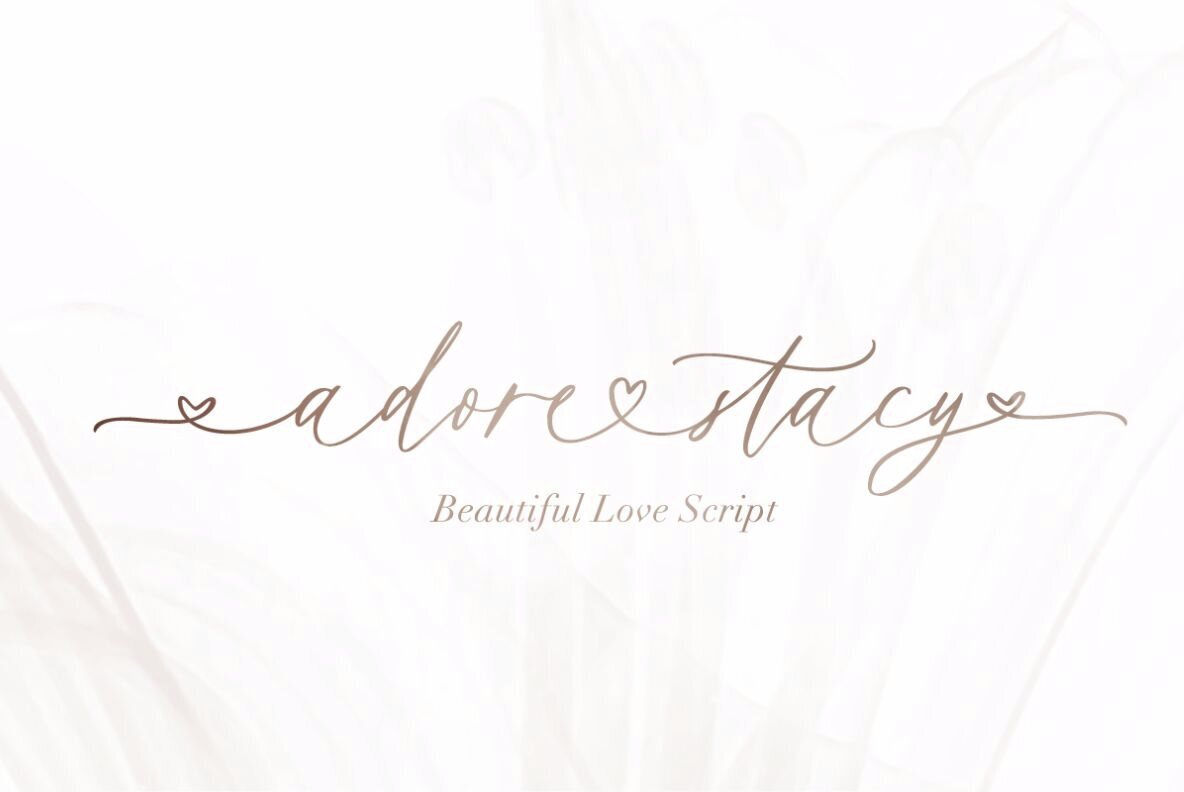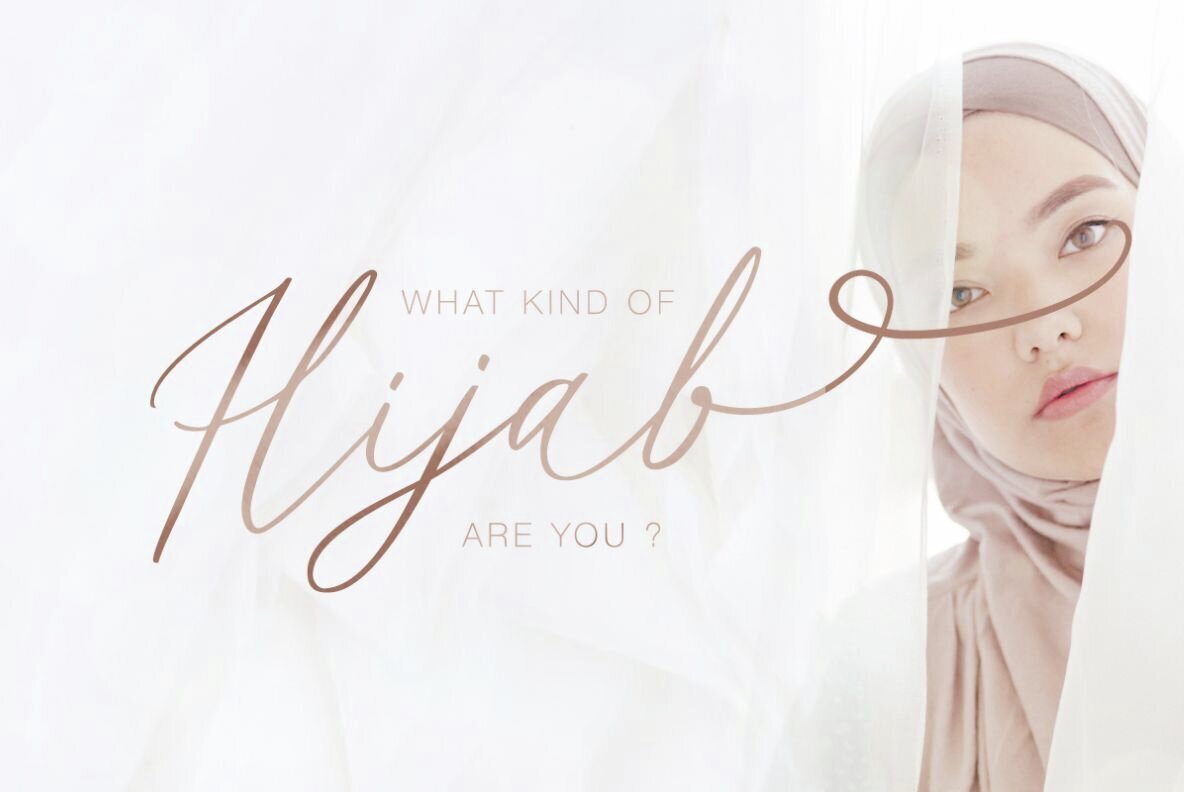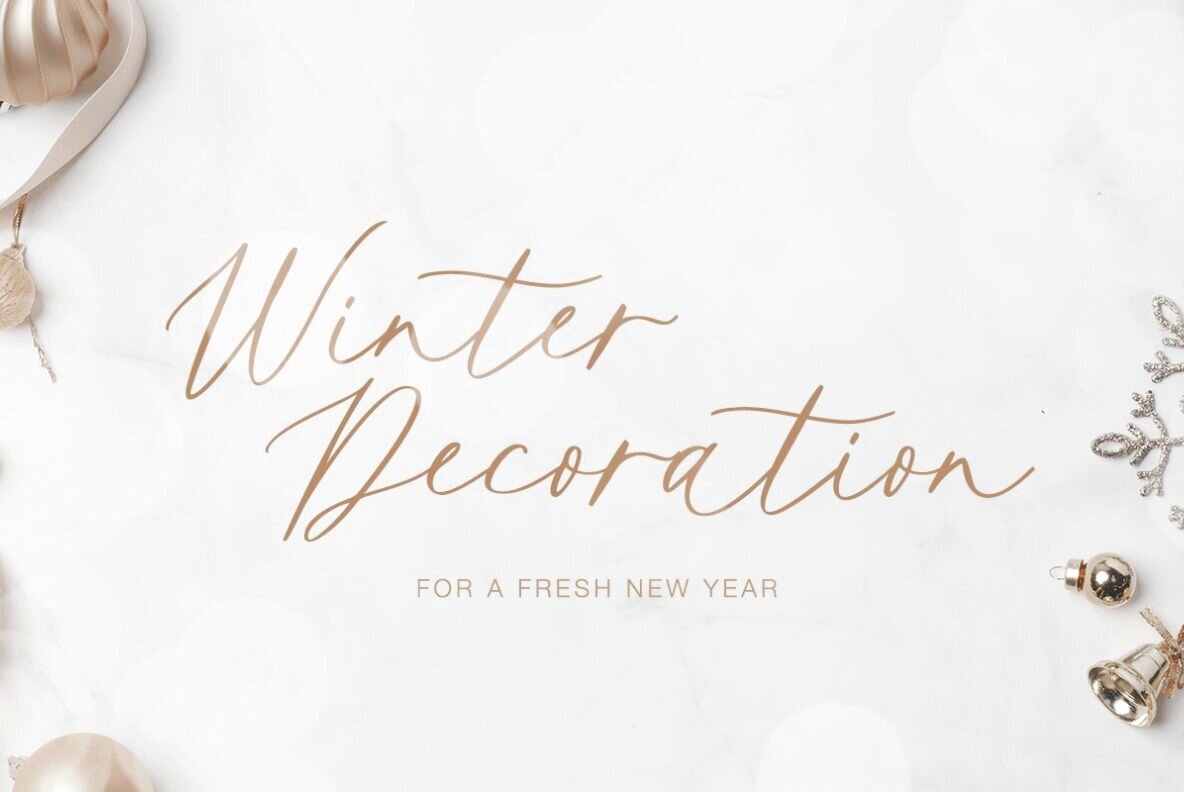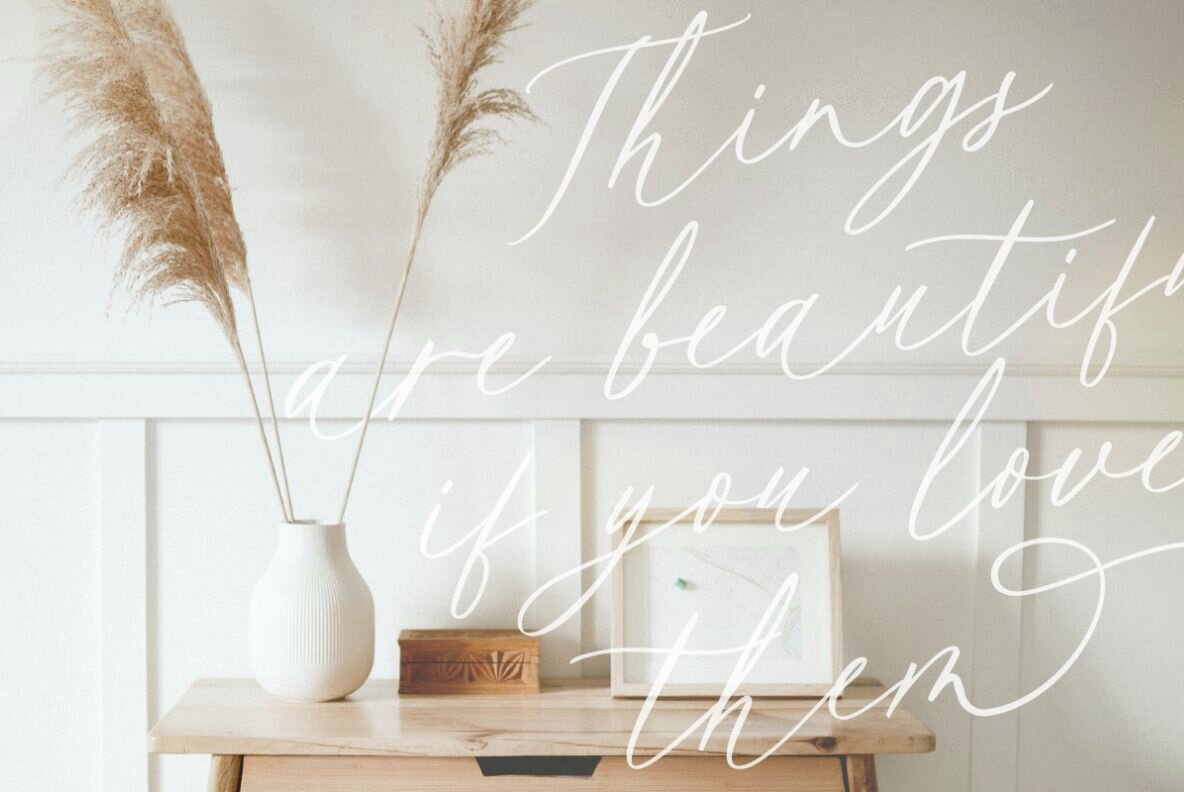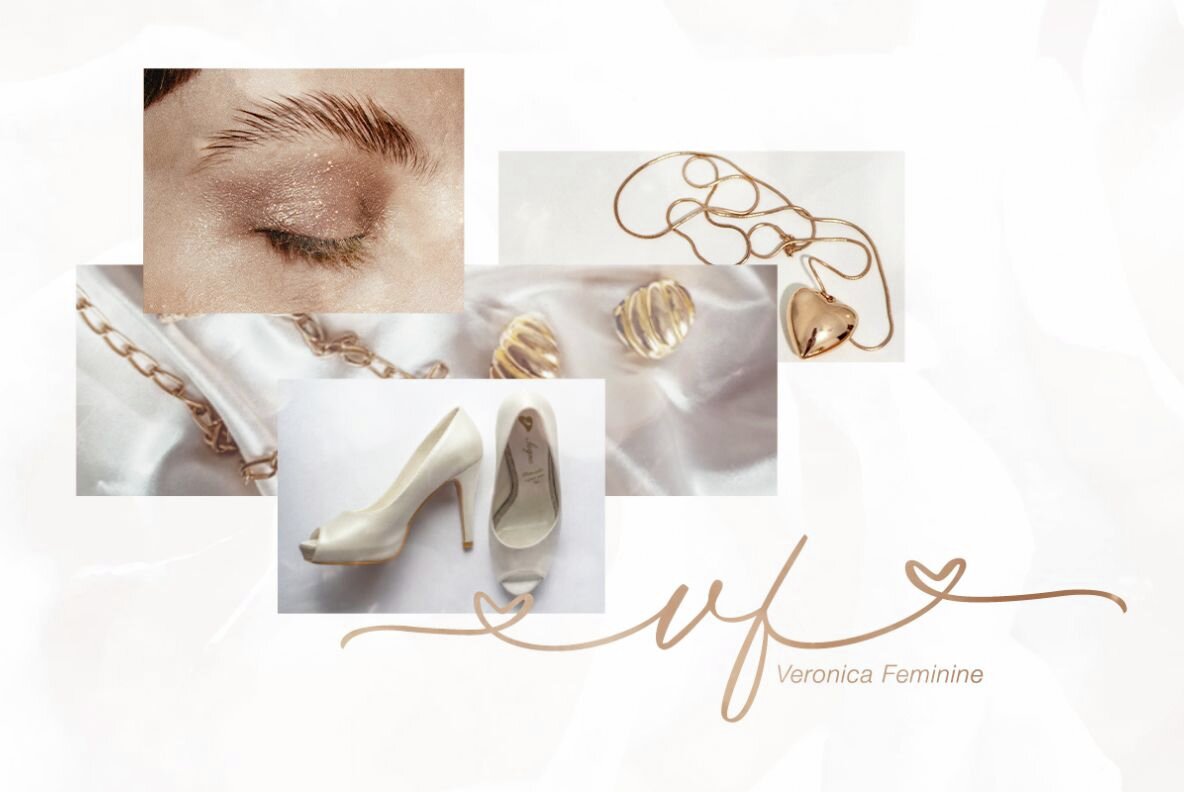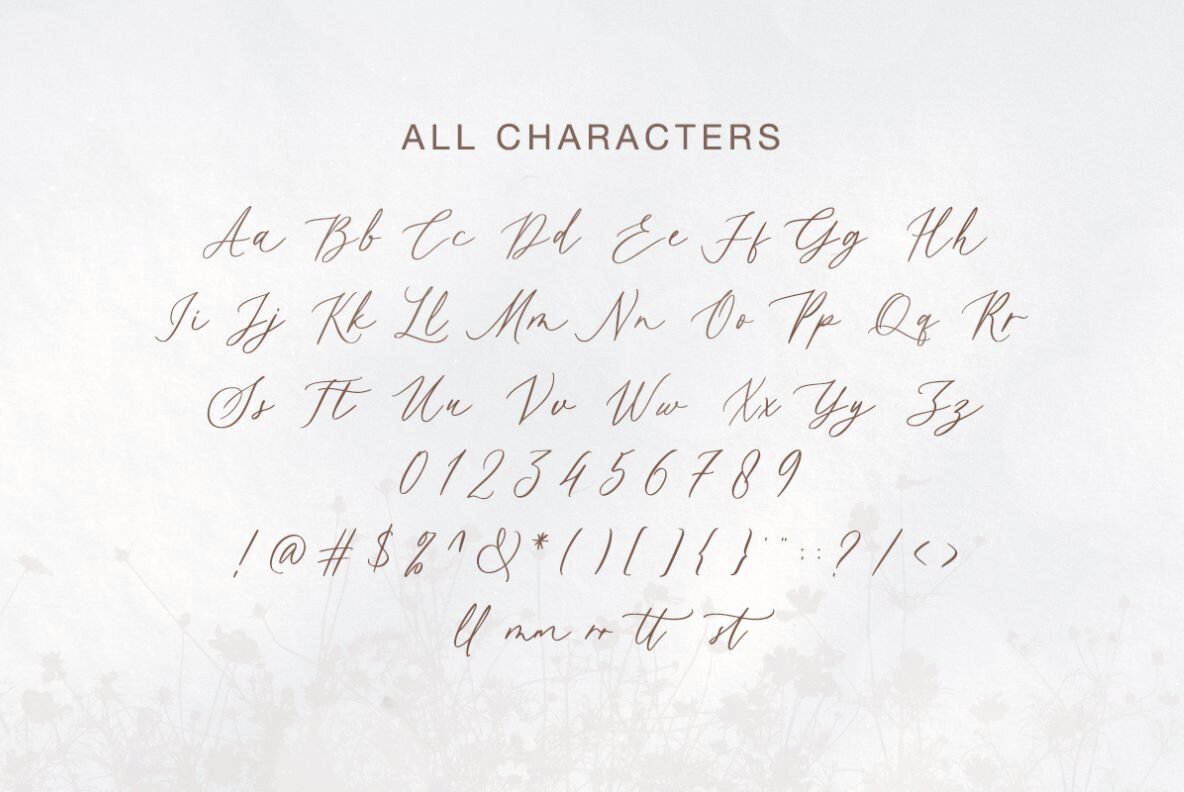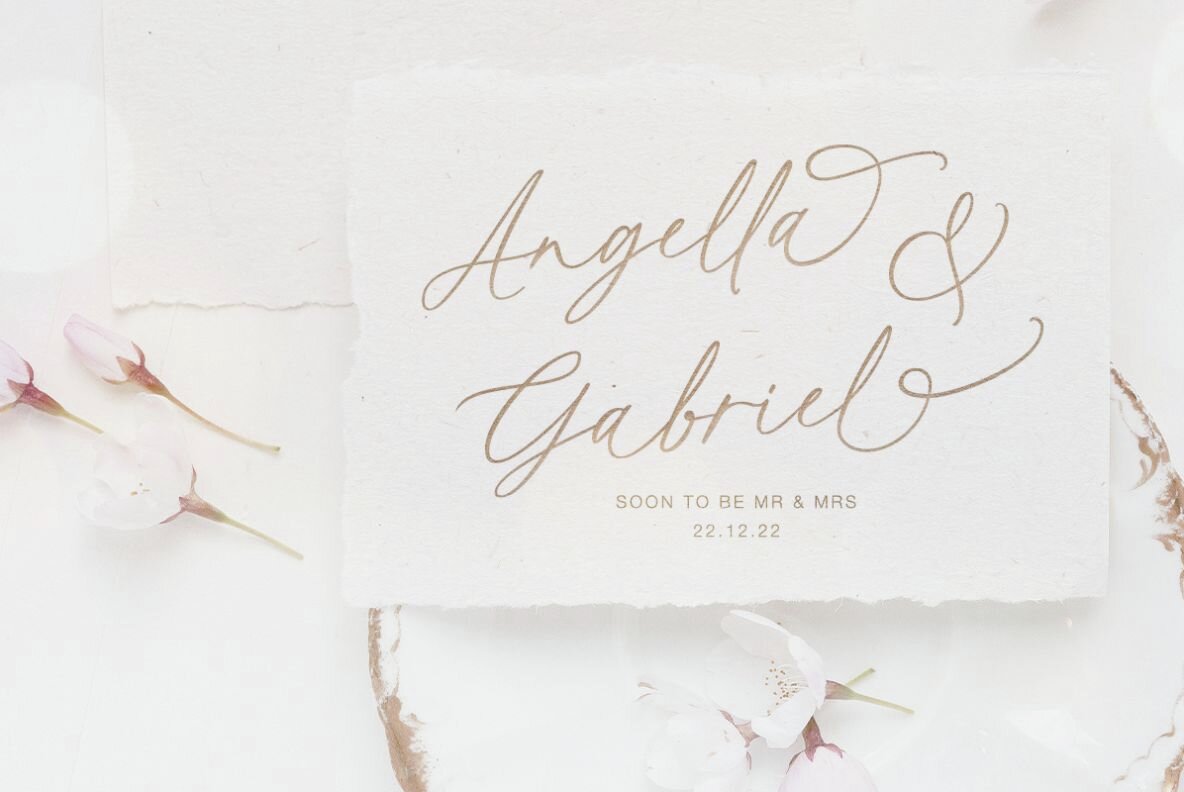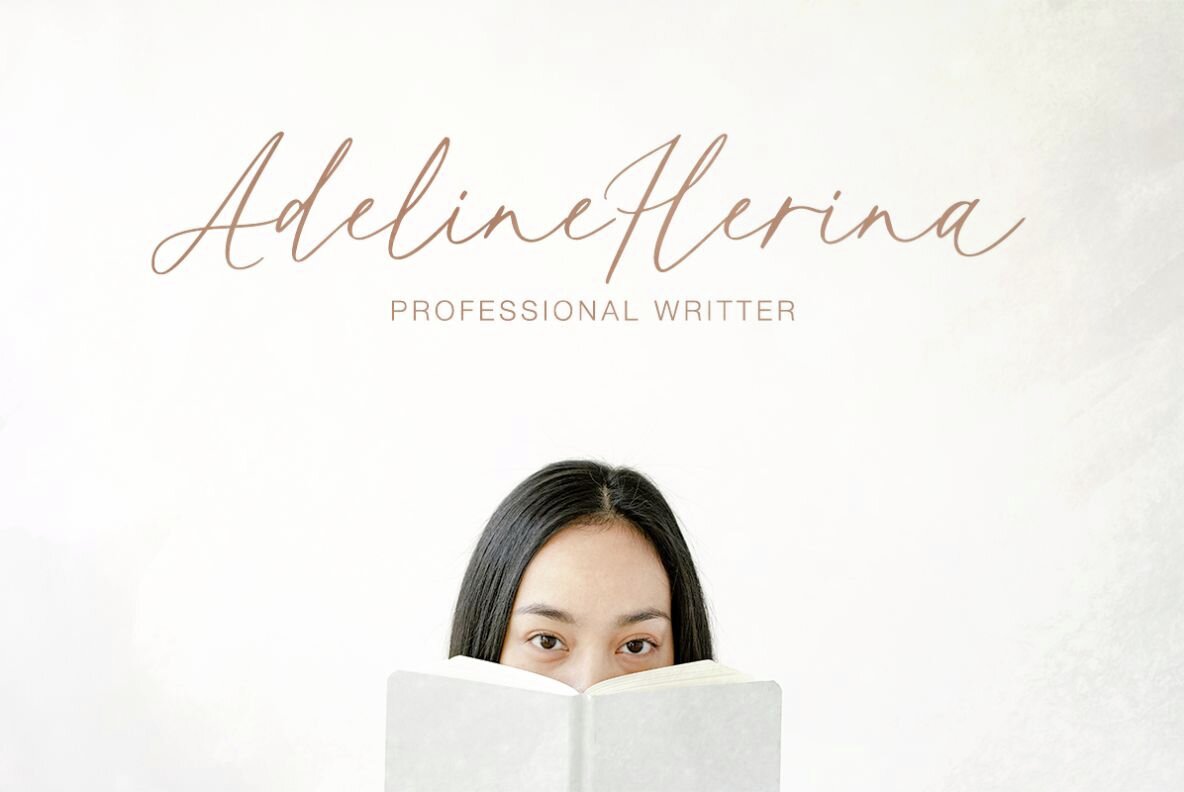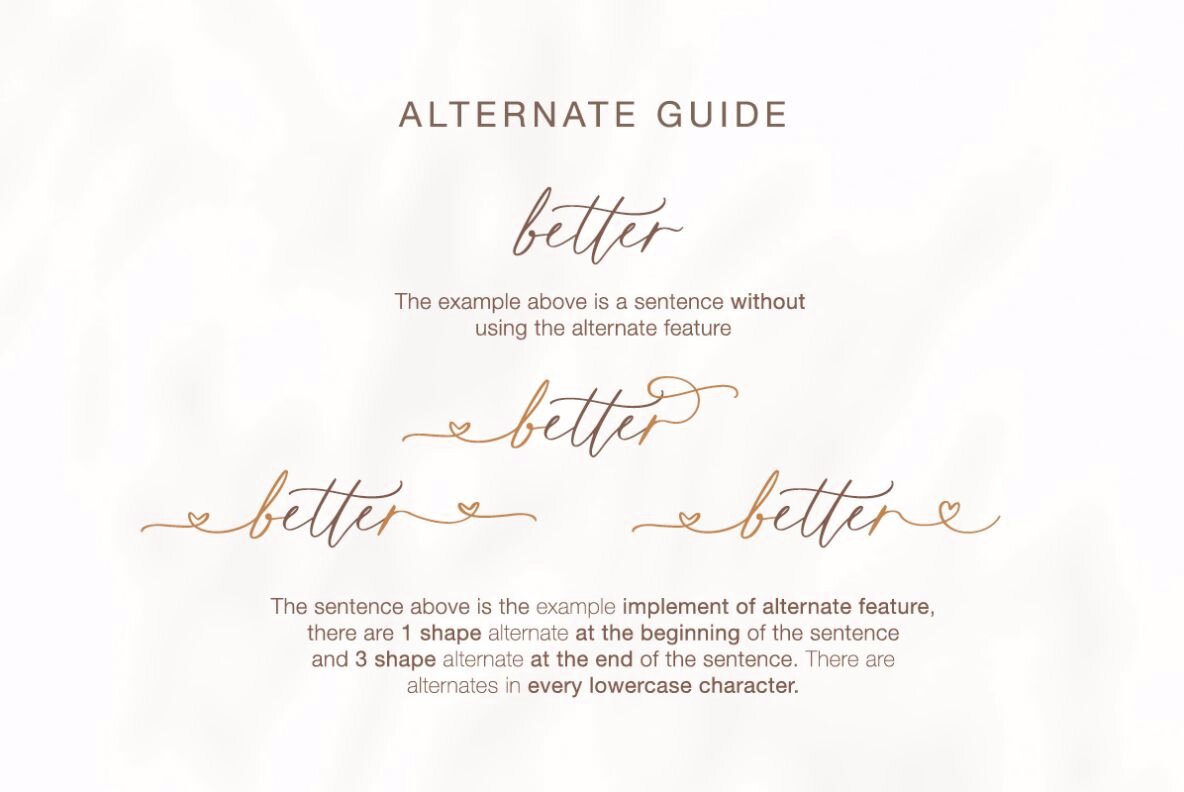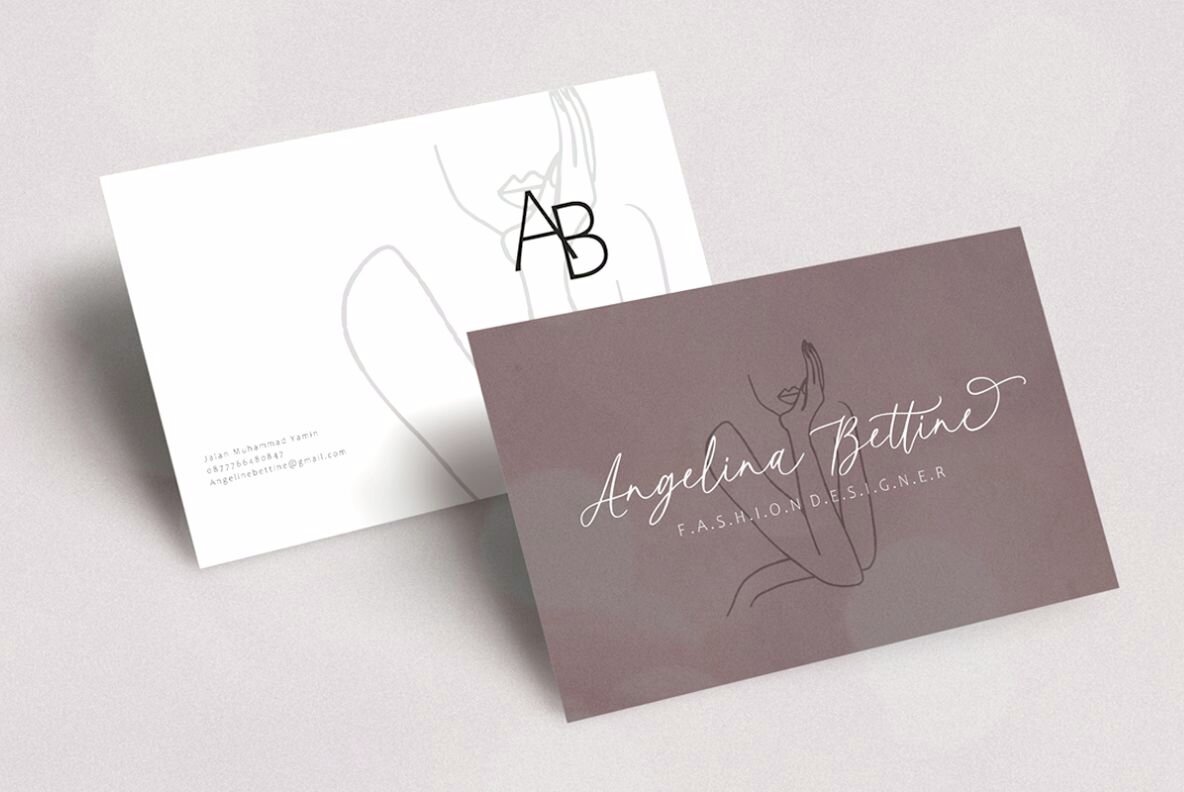
Adore Stacy Font
Adore Stacy Regular
Infuse your design projects with the charm and elegance of Adore Stacy, a stunning handwritten script that exudes a fluid, flowing style with a heartfelt touch. Inspired by brush lettering, this font captures a natural and expressive feel, making it the perfect choice for wedding invitations and other sophisticated designs. With its ability to convey a handwritten look effortlessly, Adore Stacy saves you the time and effort of traditional calligraphy.Adore Stacy: A Handwritten Script with Elegance
Features of Adore Stacy